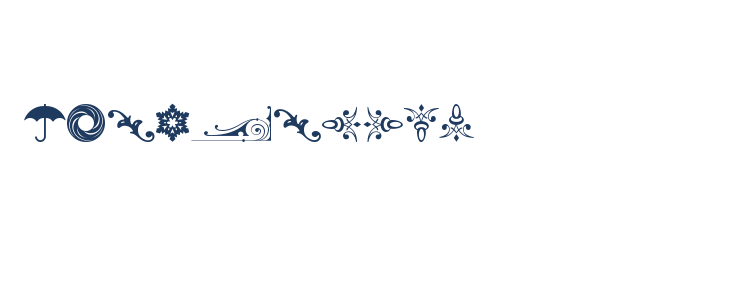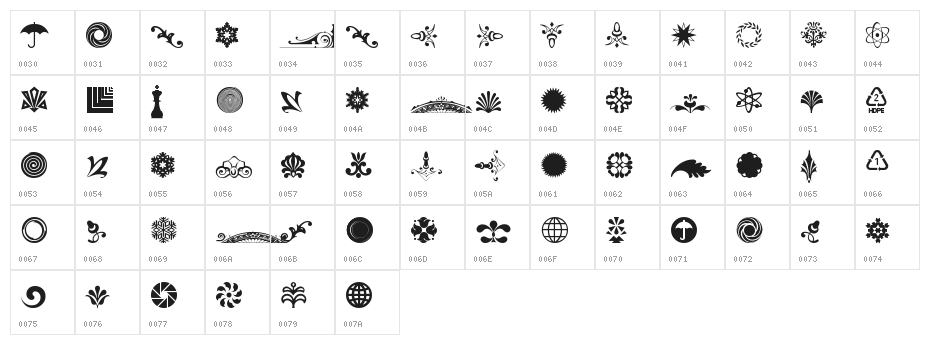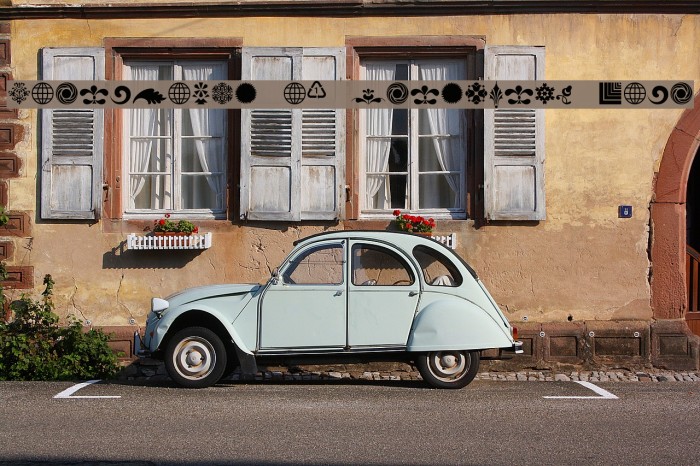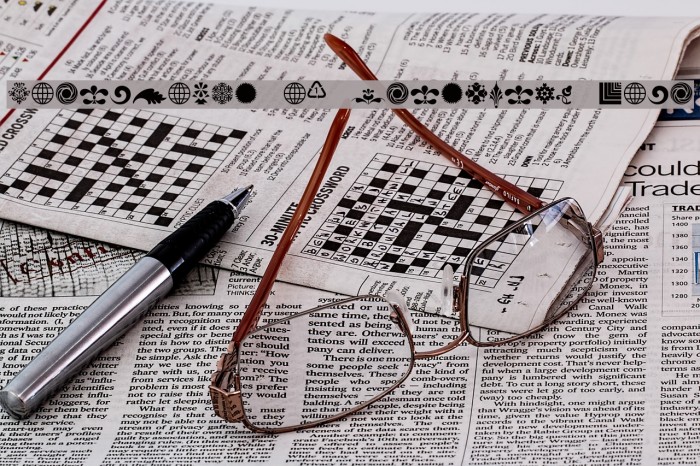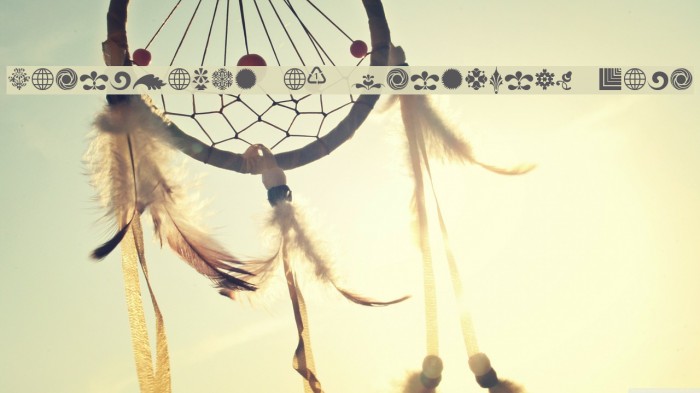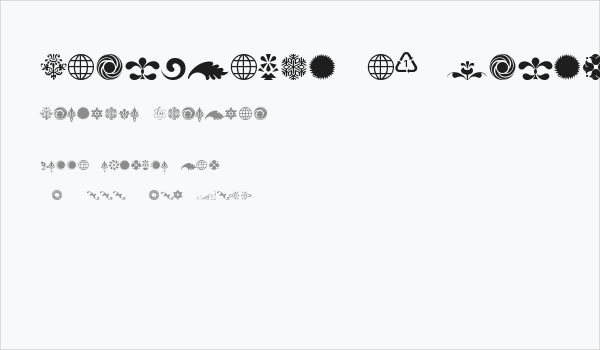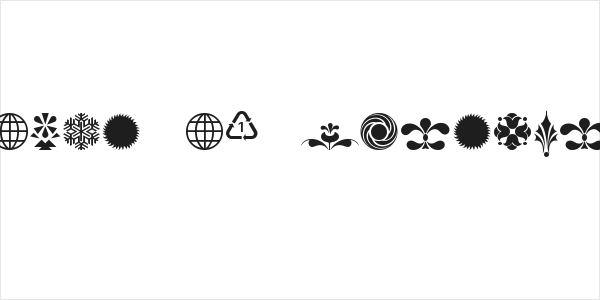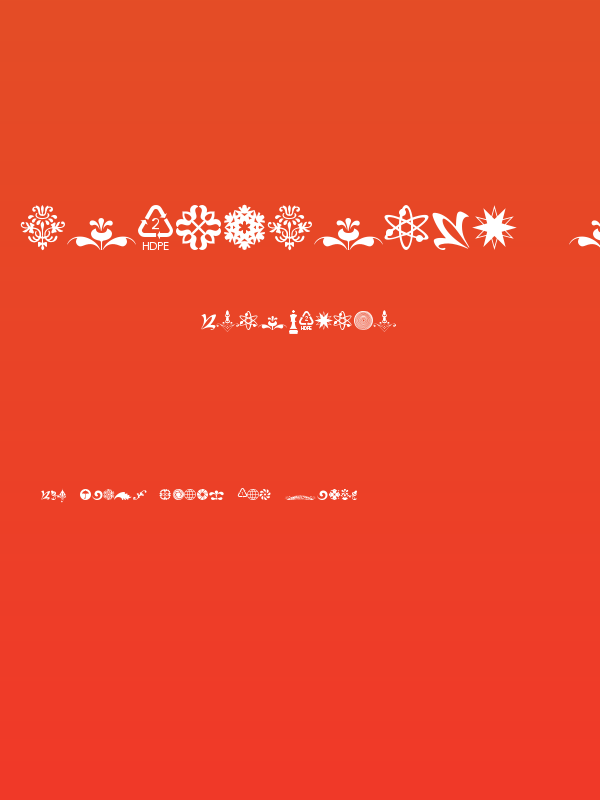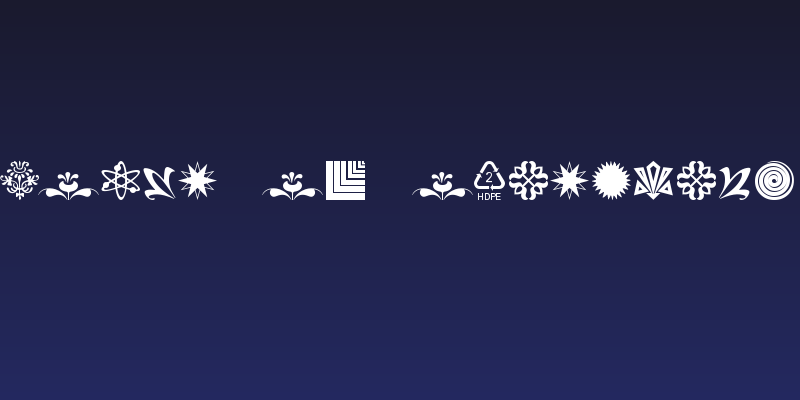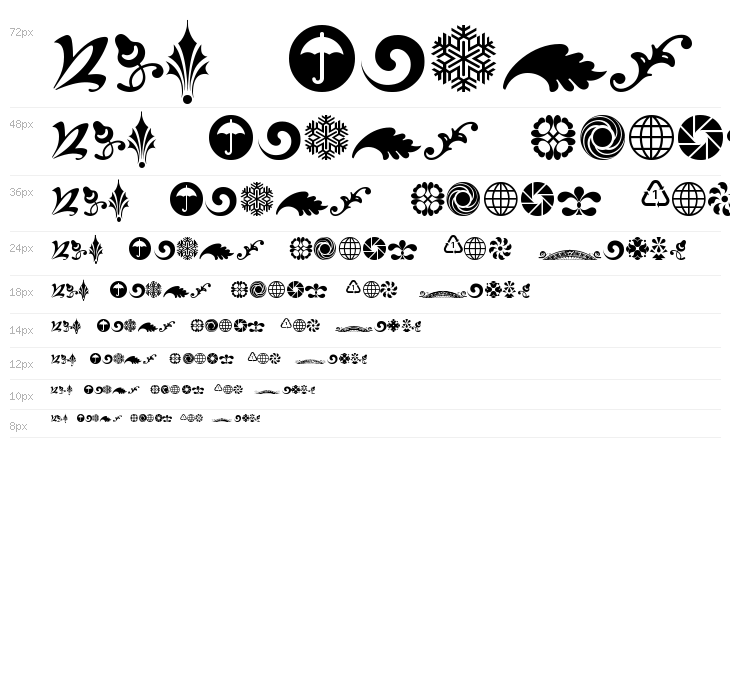
Cornucopia of Ornaments Four Font
Cornucopia of Ornaments Four Description
A decorative dingbat collection featuring a wide variety of ornamental symbols, including florals, geometric shapes, swirls, snowflakes, umbrellas, and abstract motifs. The glyphs are bold, highly stylized, and intended for embellishment rather than text communication.
| Overall Style | Decorative, Ornamental, Eclectic |
| Use Case | Borders, Dividers, Decorative elements, Accents |
| Proposed Projects | Invitations, certificates, borders, dividers, scrapbooking, decorative accents in print and digital design. |